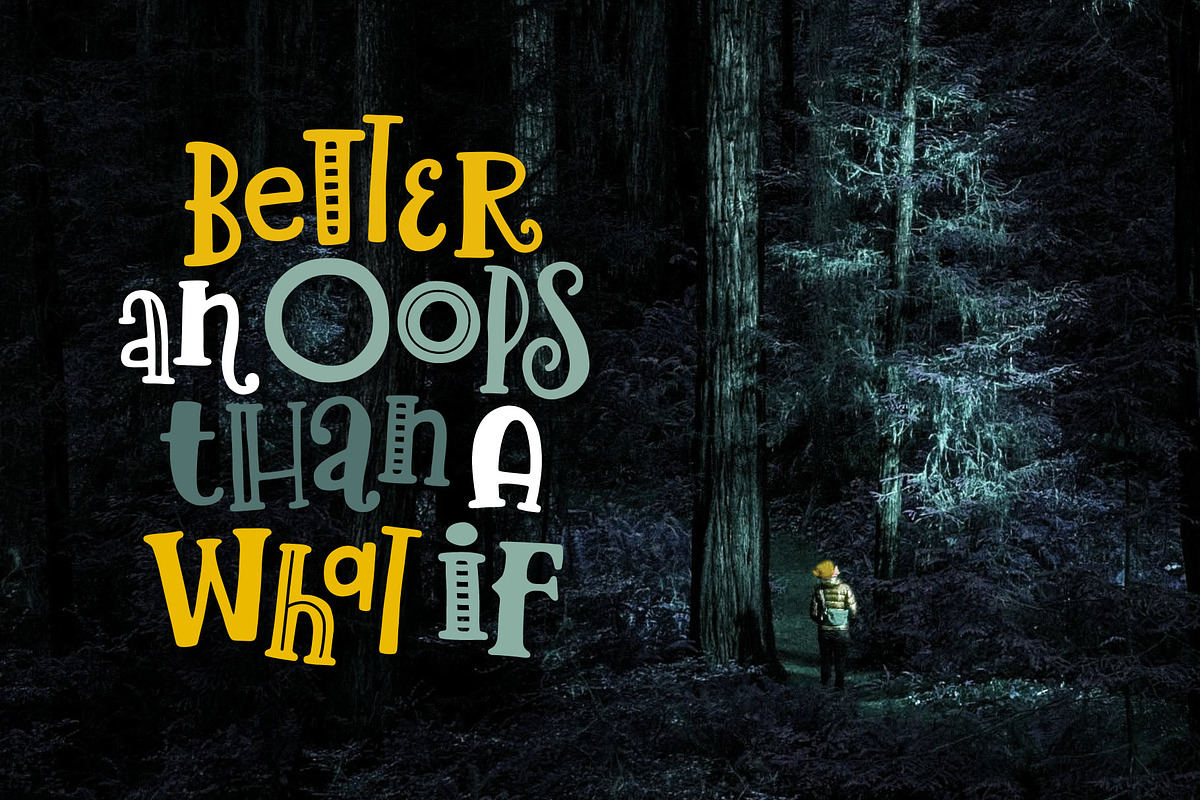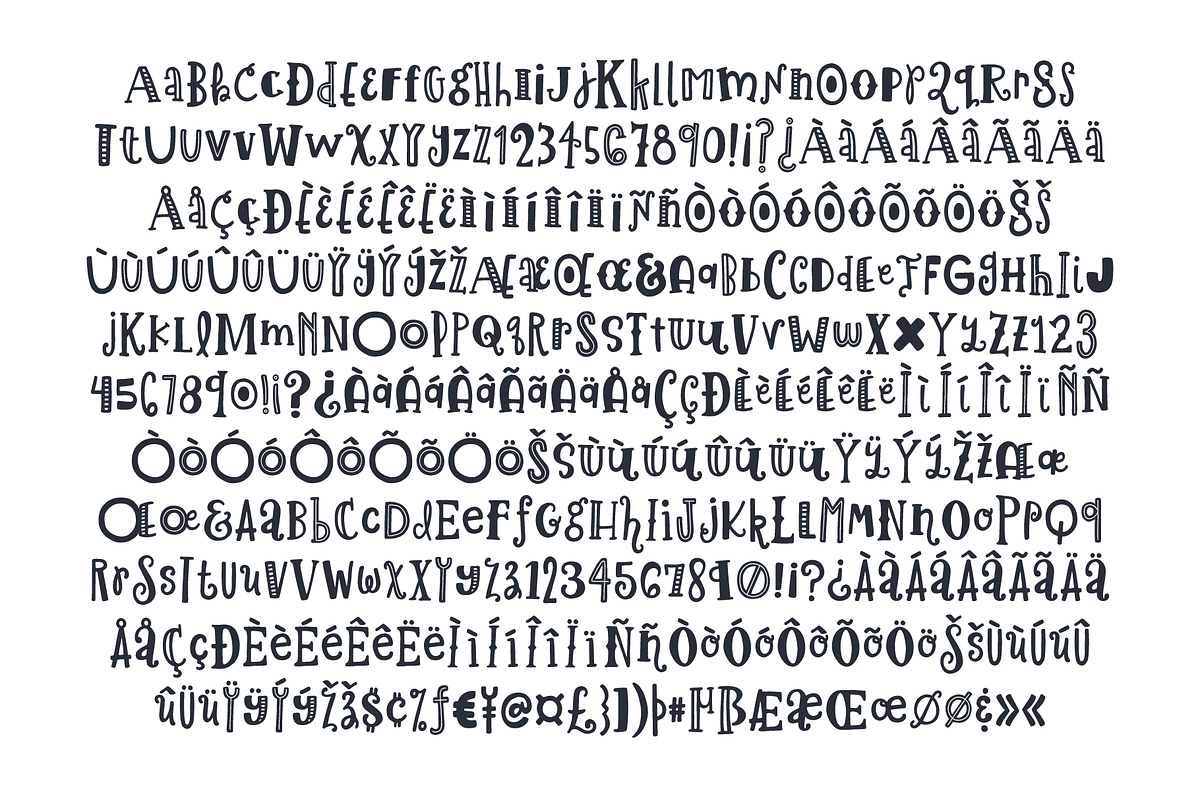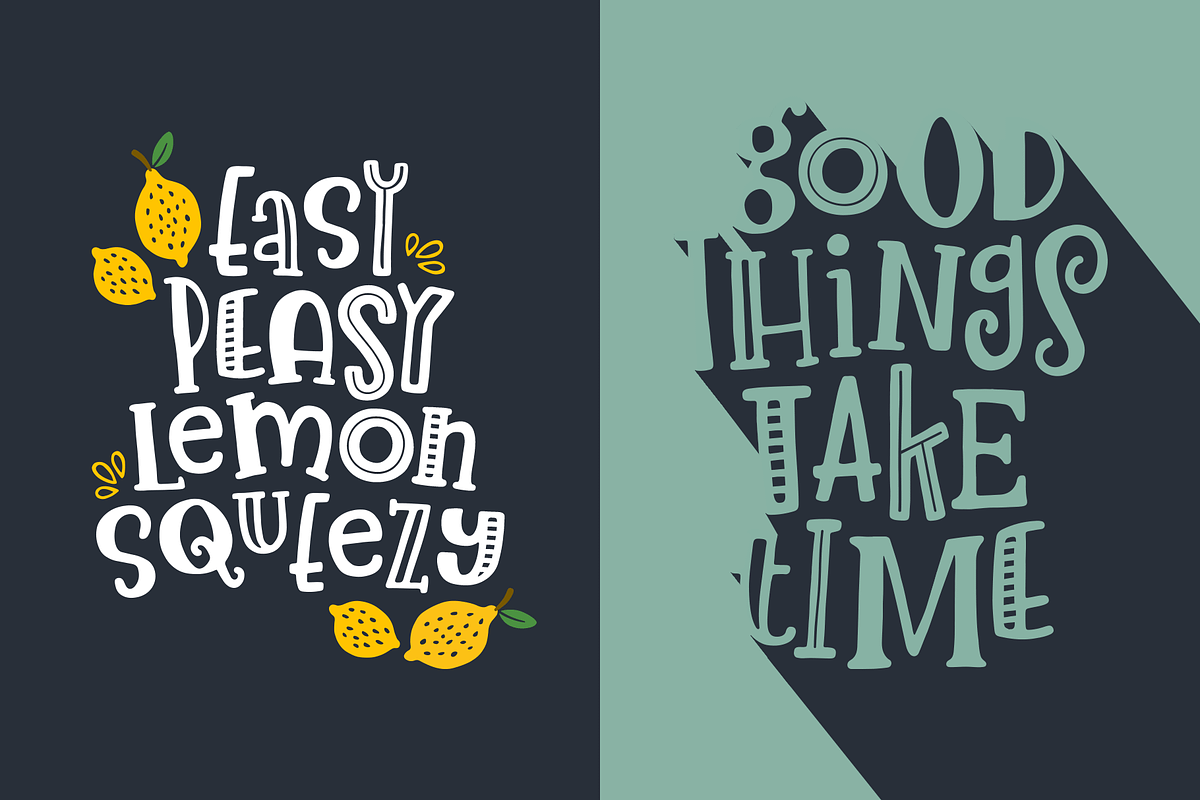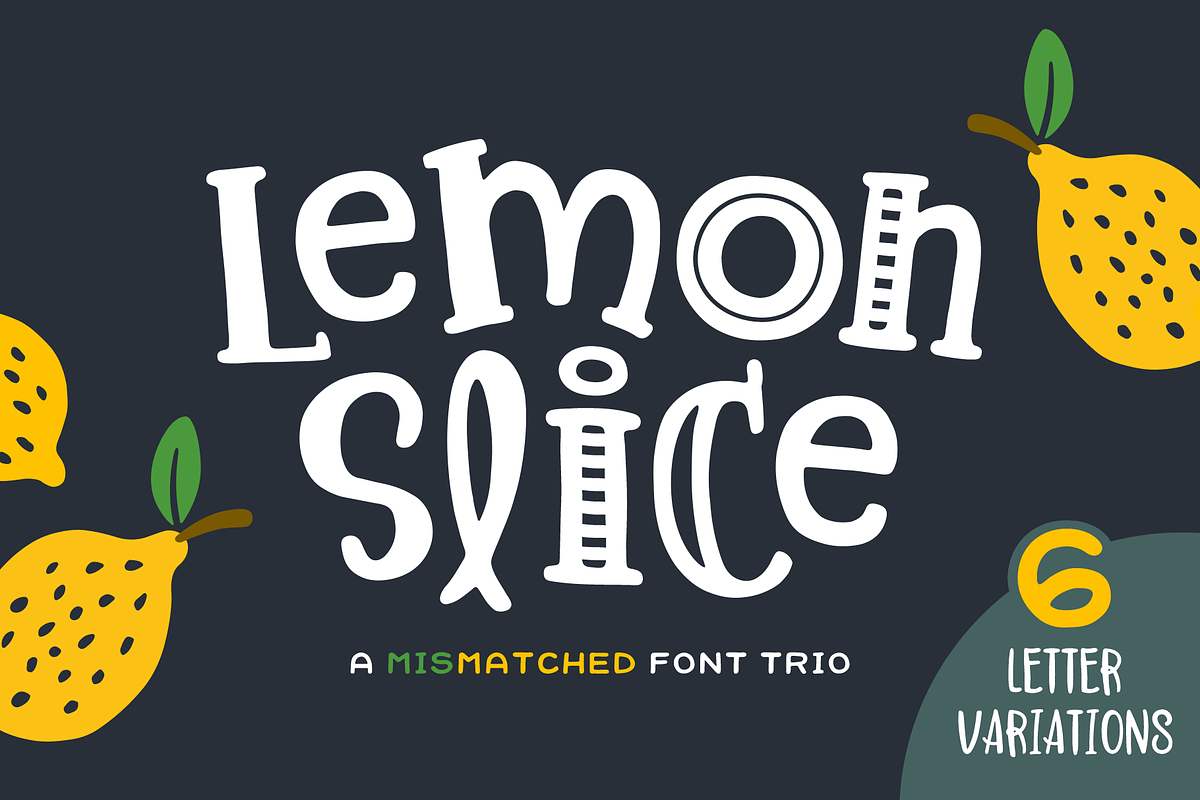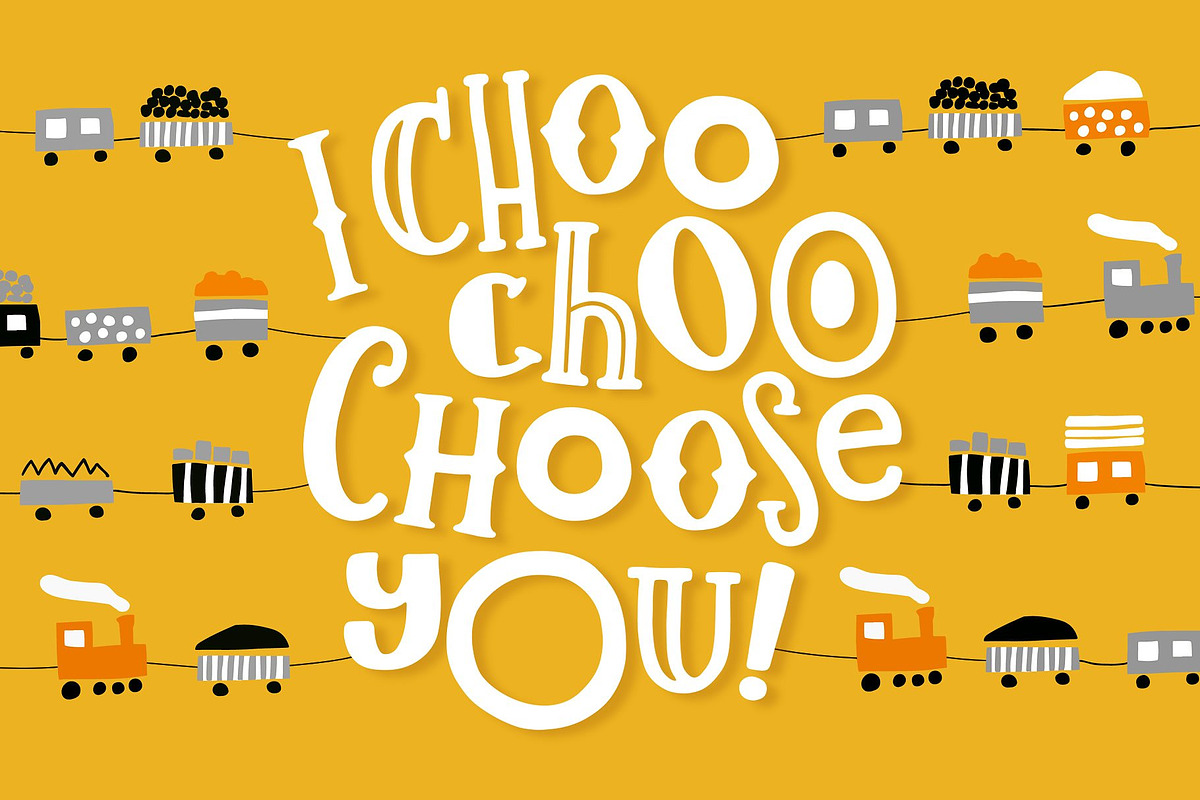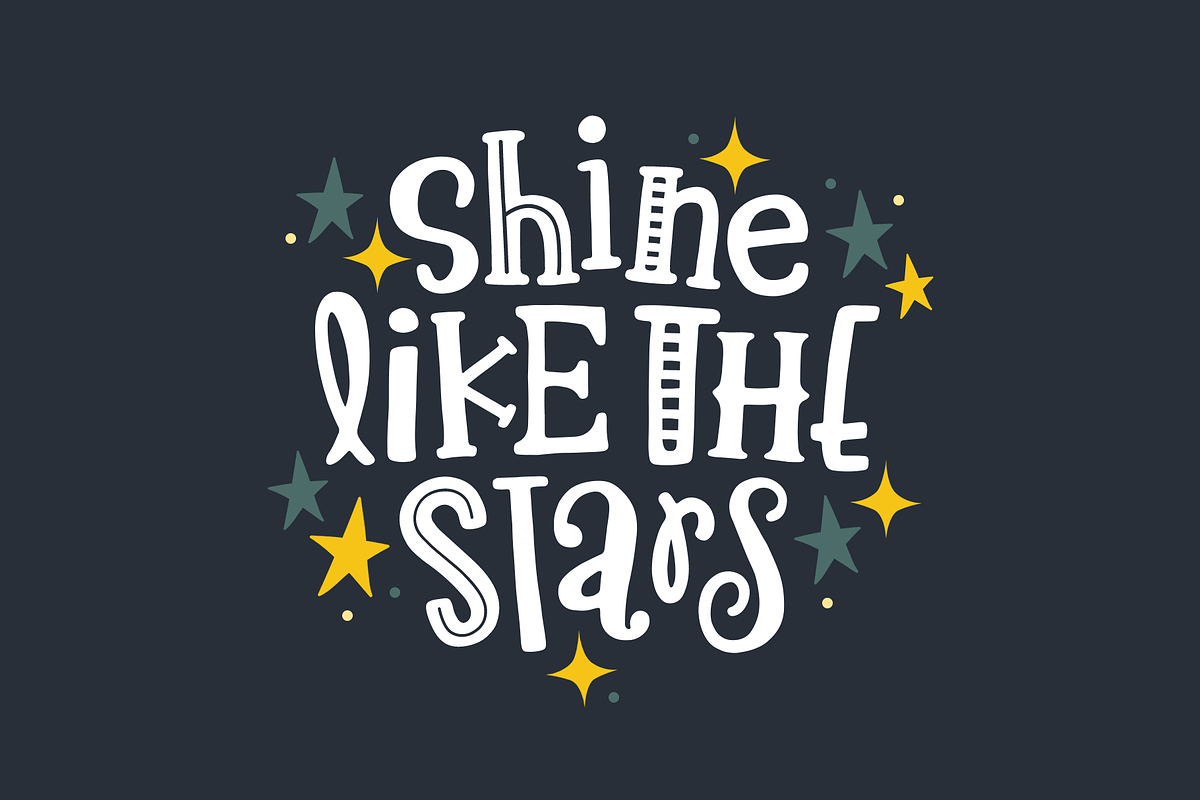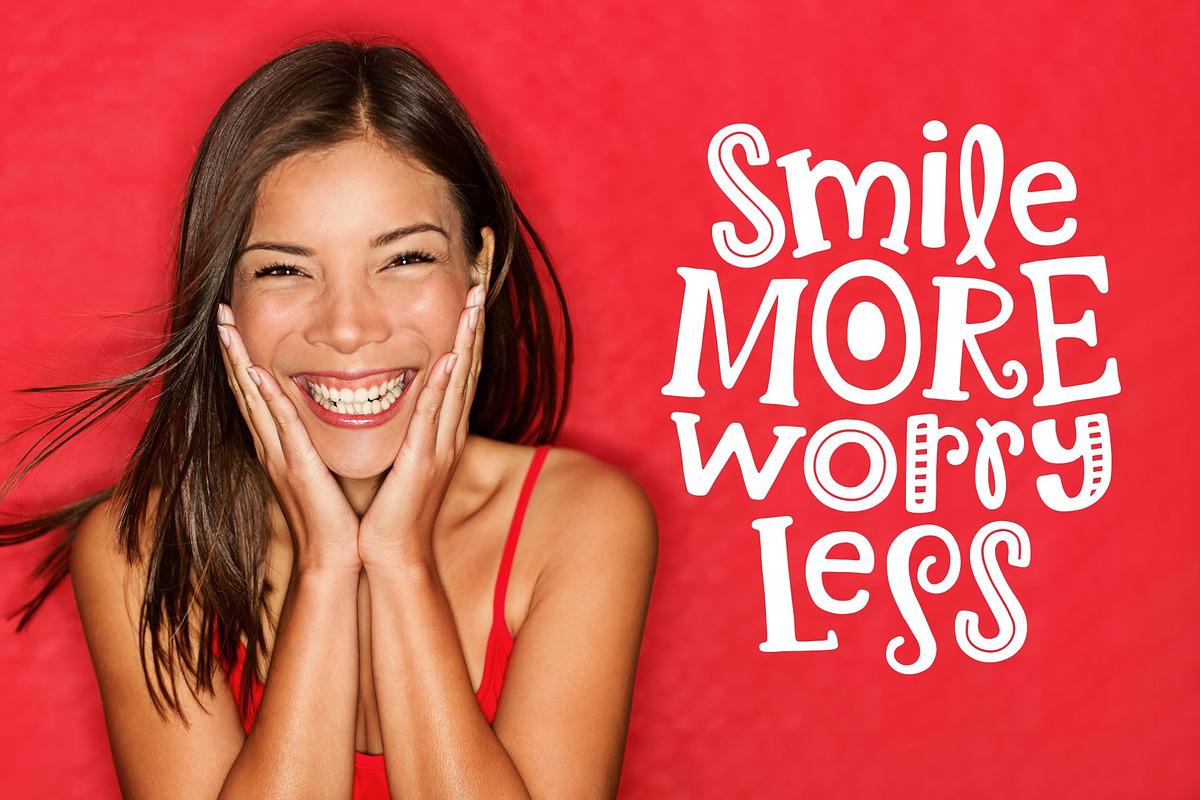
Lemon Slice Font Trio
Lemon Slice is an adorably mismatched font trio. There are 6 variations of each letter which makes it easy to come up with something unique and creative.
Lemon Slice Font Trio by Denise Chandler fits naturally into Branding, posters, packaging, typography.